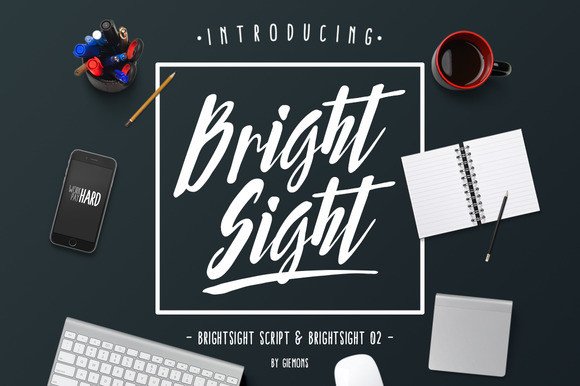
Prepare to be mesmerized by Bright Sight Script, a font that radiates brilliance and enchantment. This captivating brush script font, meticulously crafted by Giemons, is an artistic masterpiece that will illuminate your creative endeavors. With its vibrant strokes and elegant curves, Bright Sight Script ignites a spark of inspiration, propelling your designs to new heights of allure.
Immerse yourself in the world of visual storytelling with Bright Sight Script, a font that effortlessly captures the essence of creativity and imagination. Let your words dance across the page, imbued with a sense of movement and energy that leaves your audience spellbound. Whether you're crafting logos, branding materials, or stunning social media graphics, Bright Sight Script will elevate your designs with its undeniable charm.
Unleash the boundless potential of Bright Sight Script, a font that transcends the ordinary. Its versatility knows no bounds, seamlessly adapting to a myriad of creative projects. From eye-catching posters and flyers to captivating invitations and greeting cards, Bright Sight Script transforms every design into a visual masterpiece. Experience the joy of creating with a font that fuels your imagination and empowers you to manifest your artistic vision.
Dare to stand out from the crowd with Bright Sight Script, a font that commands attention and leaves a lasting impression. Its unique character and captivating aesthetics will set your designs apart, ensuring that they shine brighter than the rest. Whether you're a seasoned designer or just starting your creative journey, Bright Sight Script will ignite your passion and unveil new possibilities.
Embrace the splendor of Bright Sight Script, a font that captures the essence of artistry and innovation. Allow your creativity to soar as you explore the endless possibilities that await you. With each stroke of the brush, you'll feel the magic of Bright Sight Script transforming your ideas into tangible works of art. Let your designs radiate with brilliance and captivate your audience with every stroke.